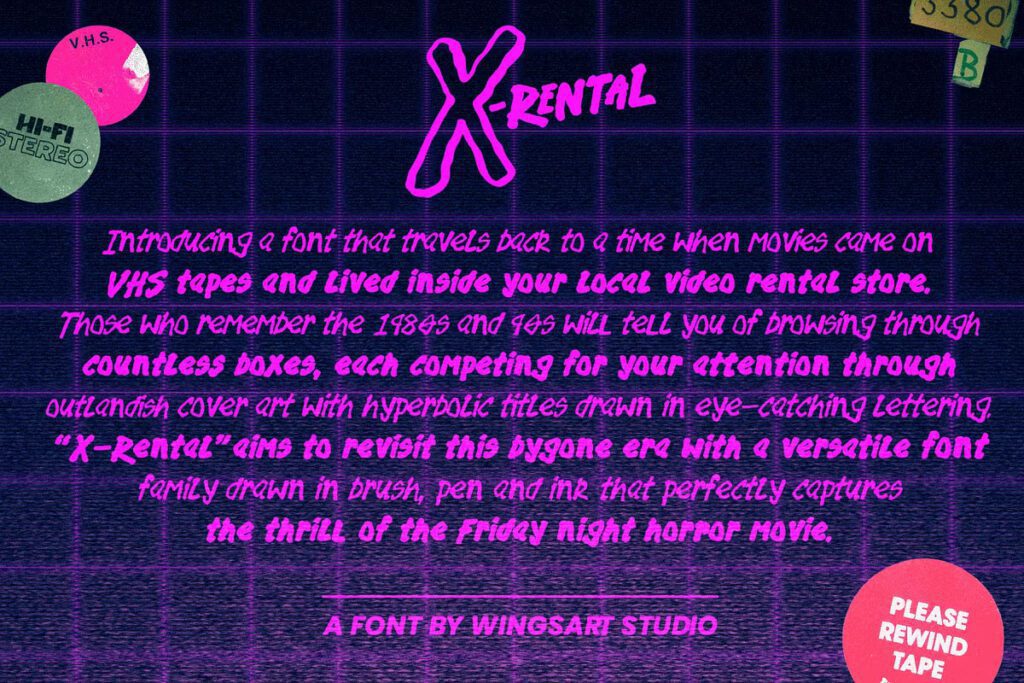
X-Rental – 1980s Retro Horror Font
Step back in time with X-Rental, a thrilling retro horror font that brings the iconic 1980s VHS rental store era to life! This typeface is perfect for anyone wanting to recreate that nostalgic horror movie feel, ideal for designs like film titles, podcasts, and magazine articles. The X-Rental Font offers various styles, including Regular, Outline, Light, and All Caps, each with alternates to enhance that hand-drawn look. Bring the frightful ambiance of classic horror to your creative projects with X-Rental.